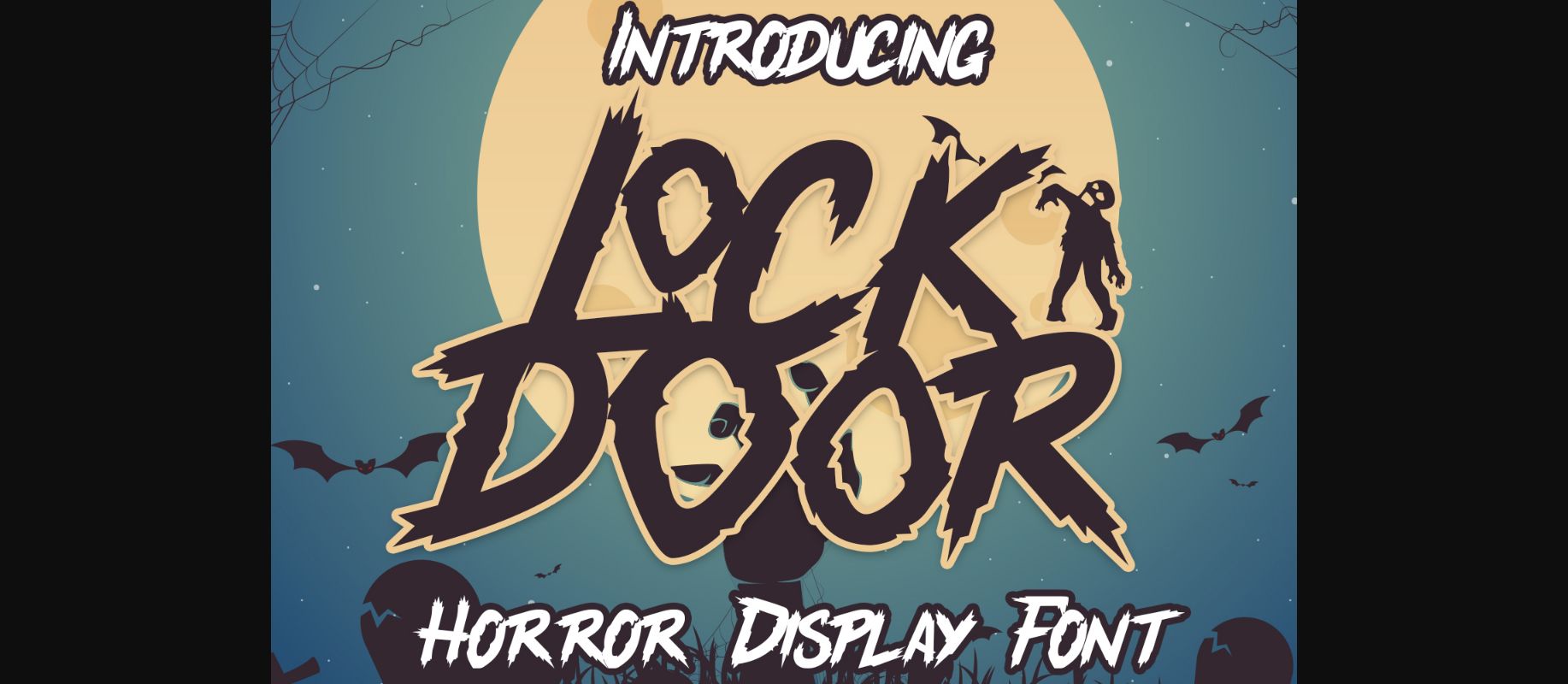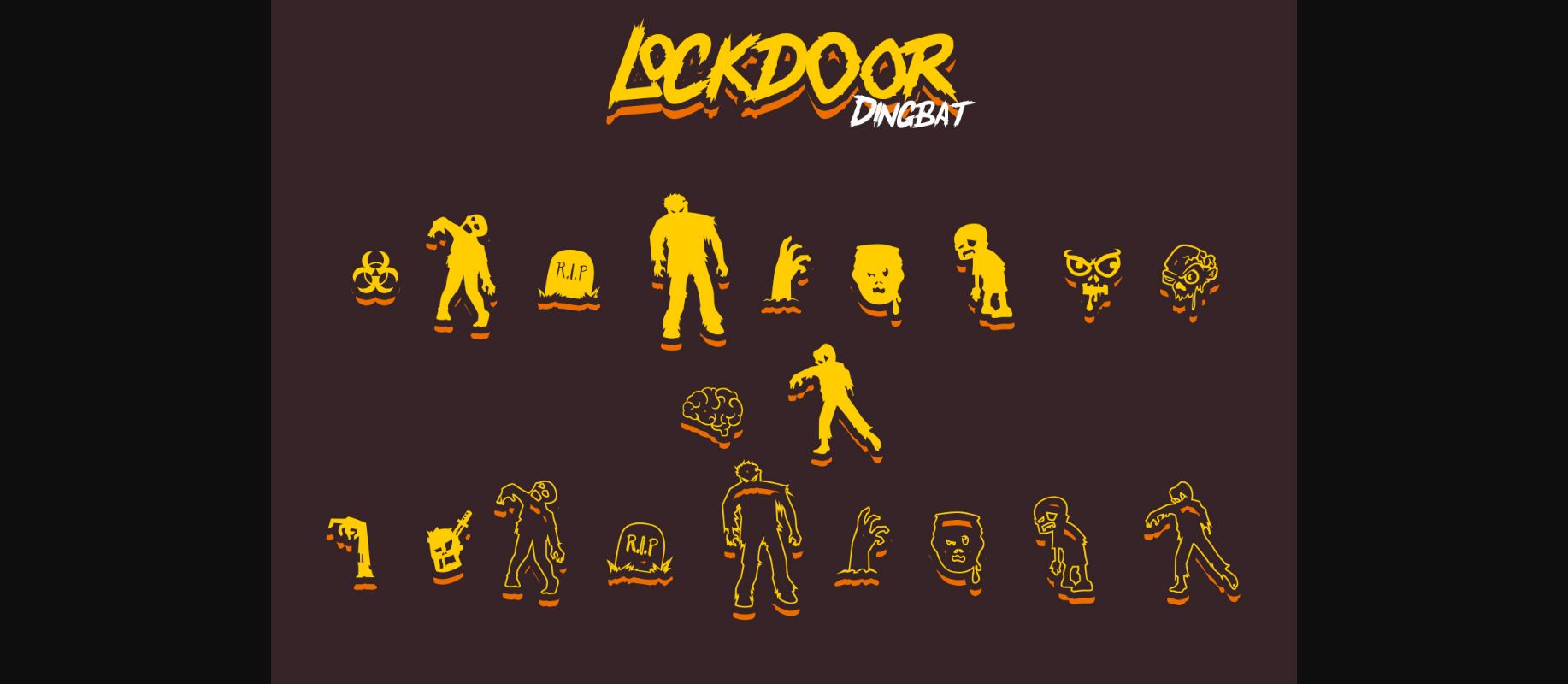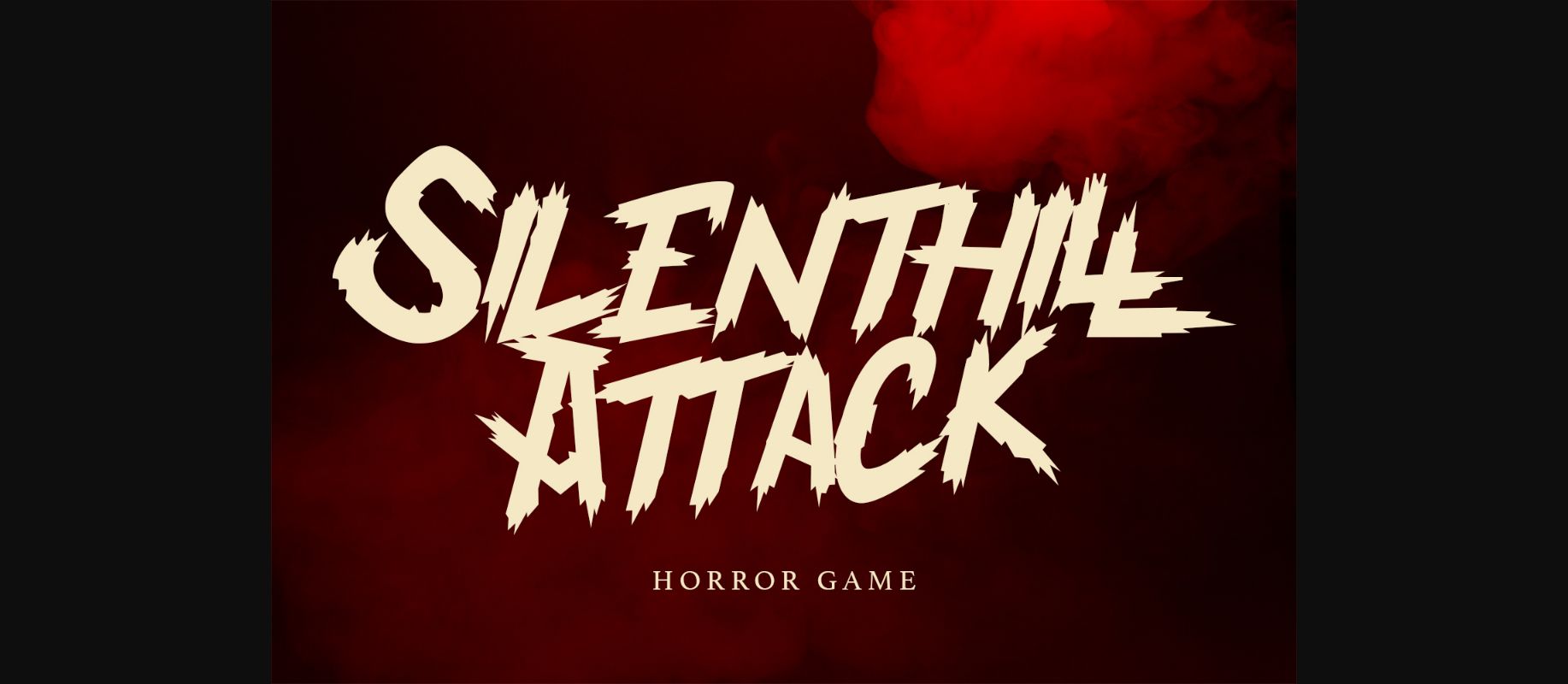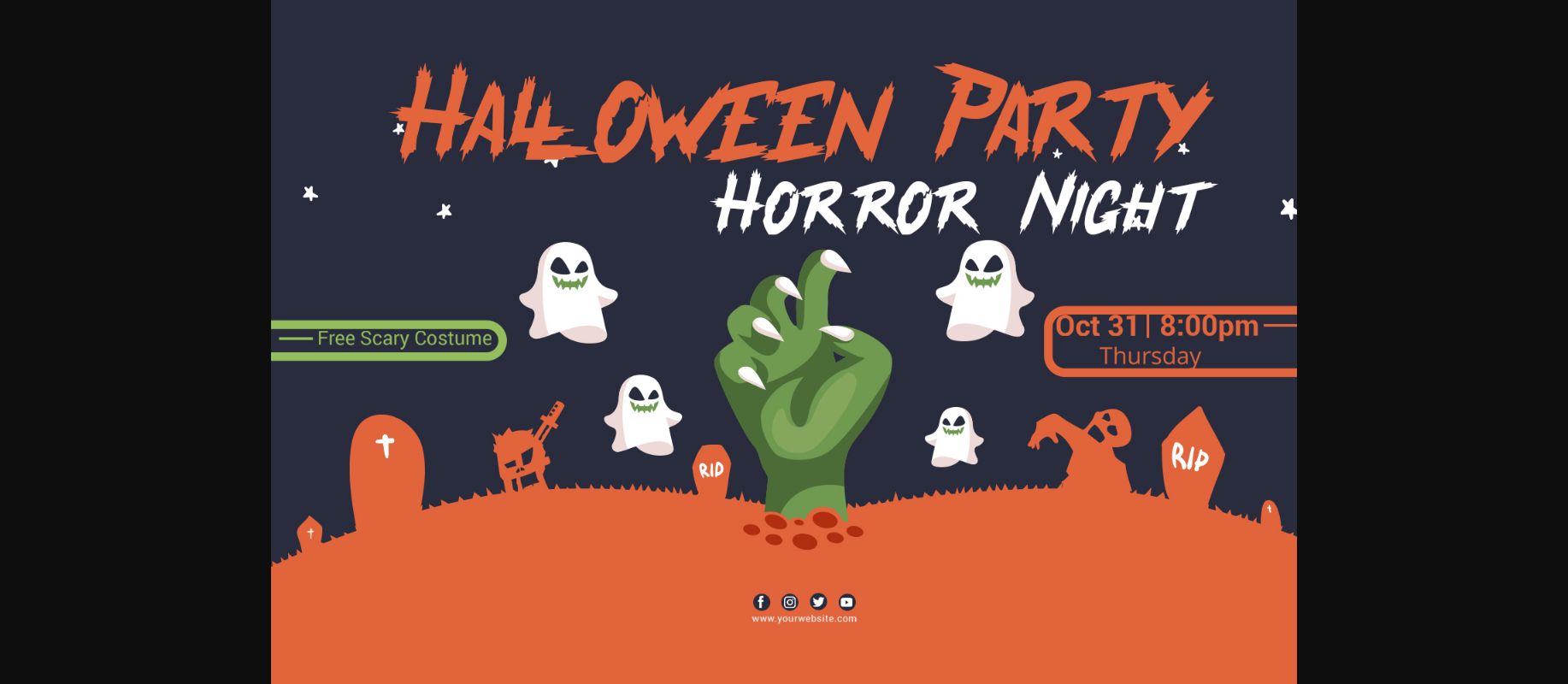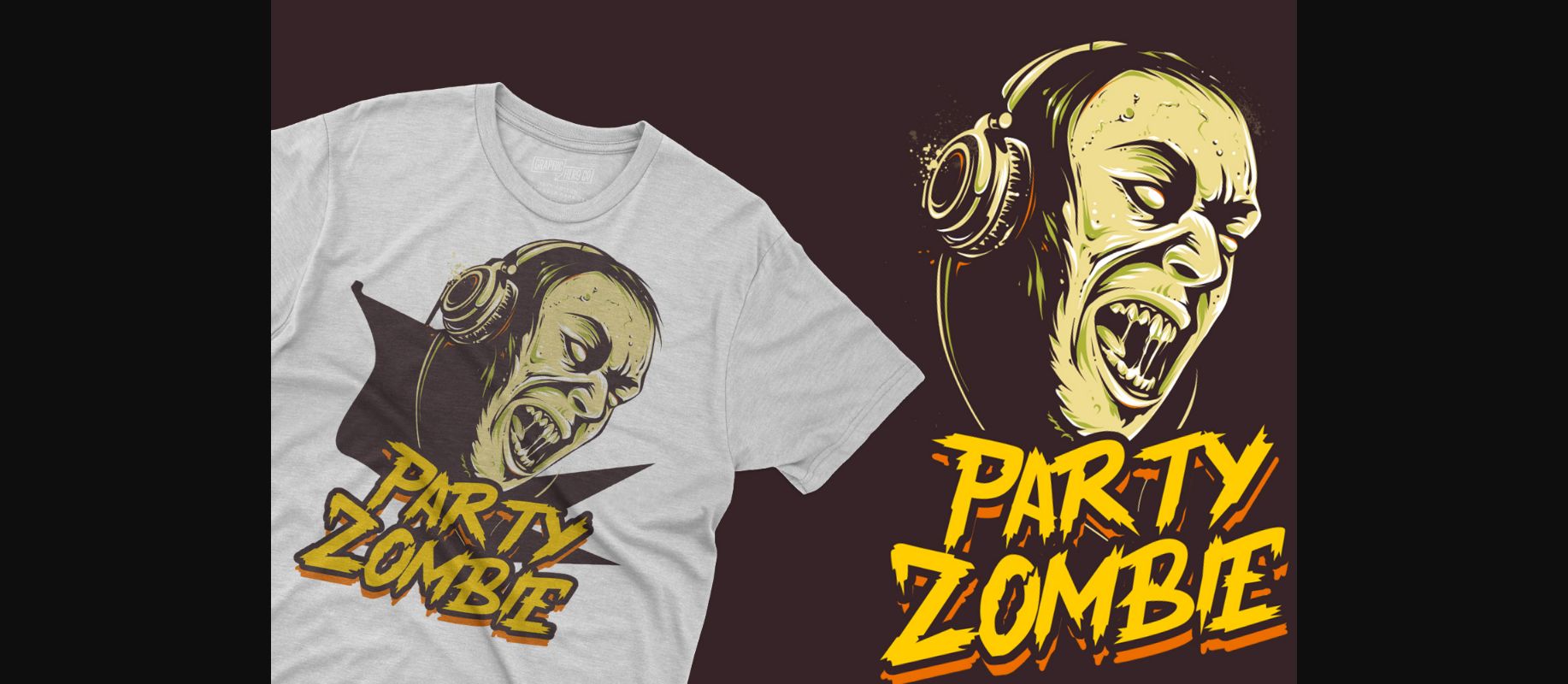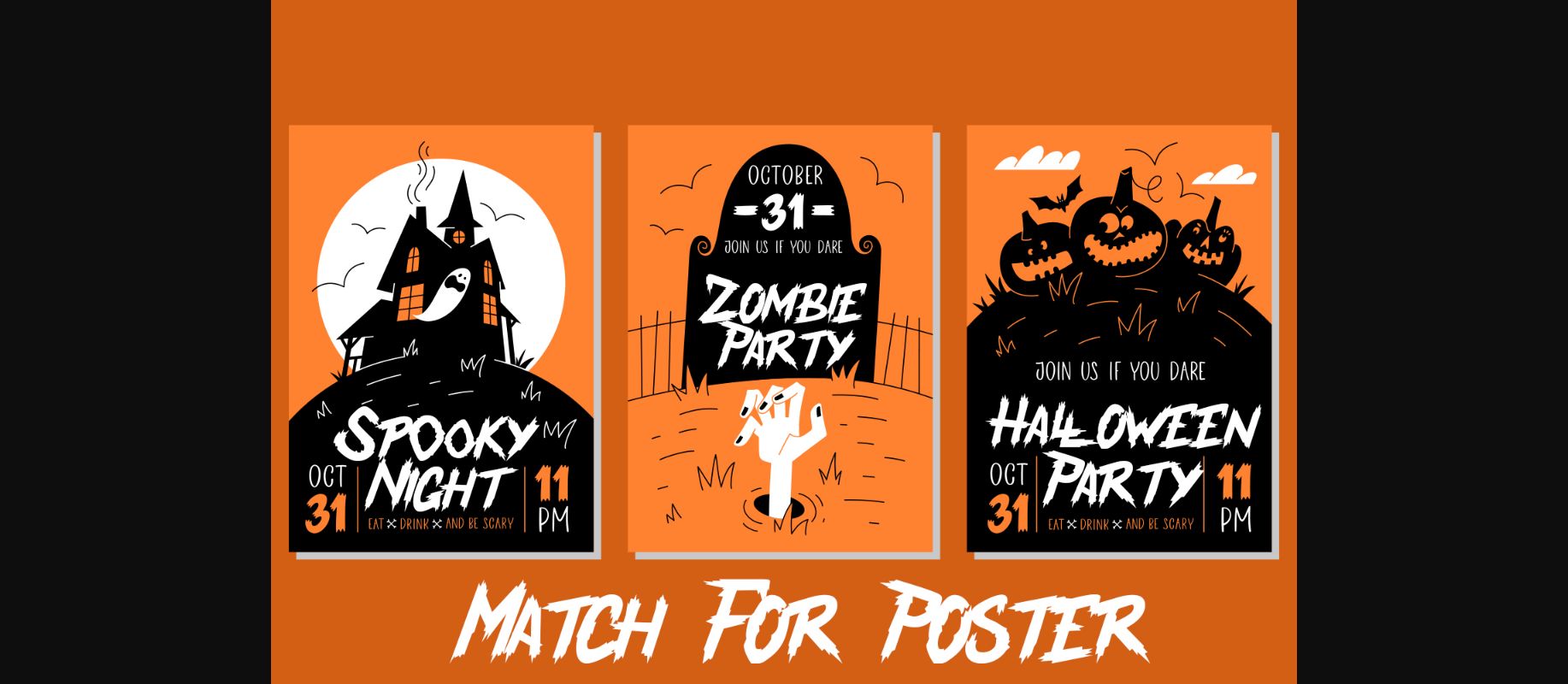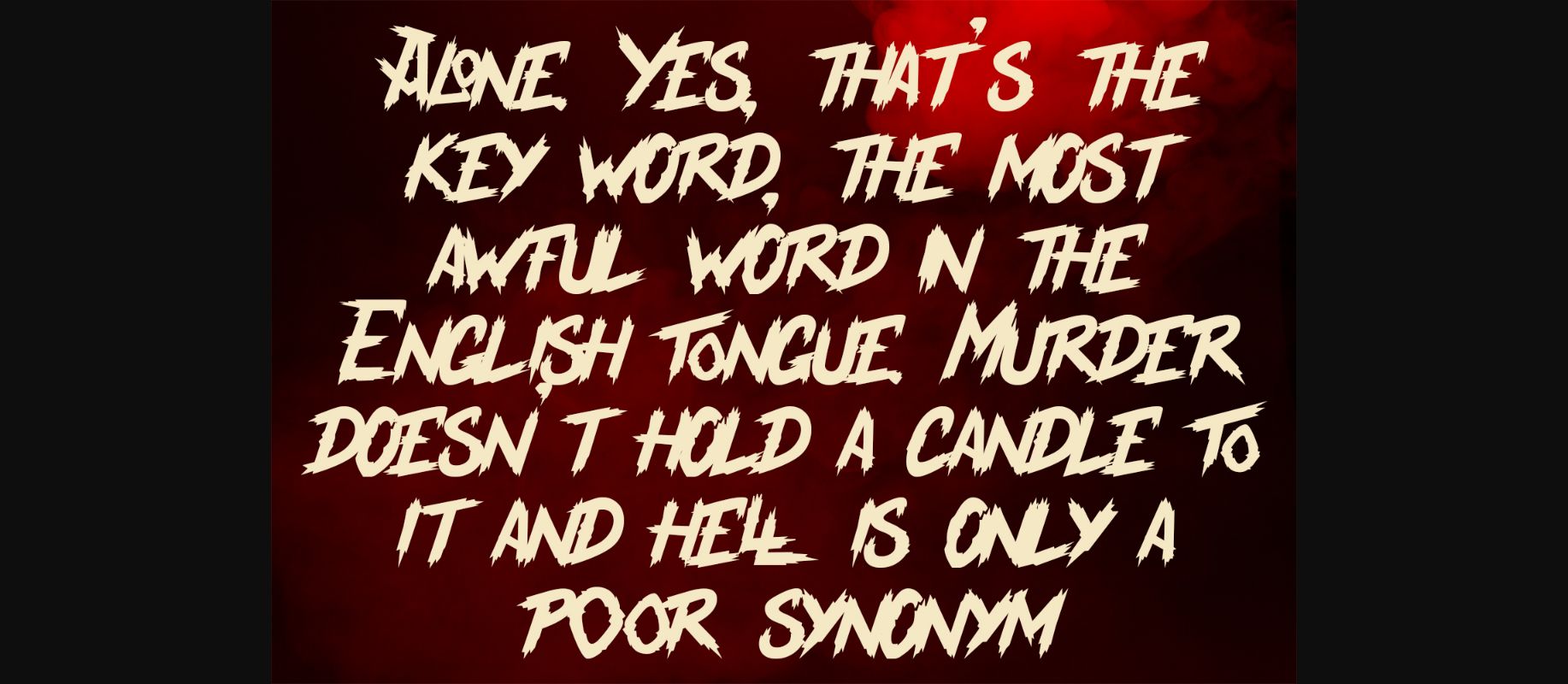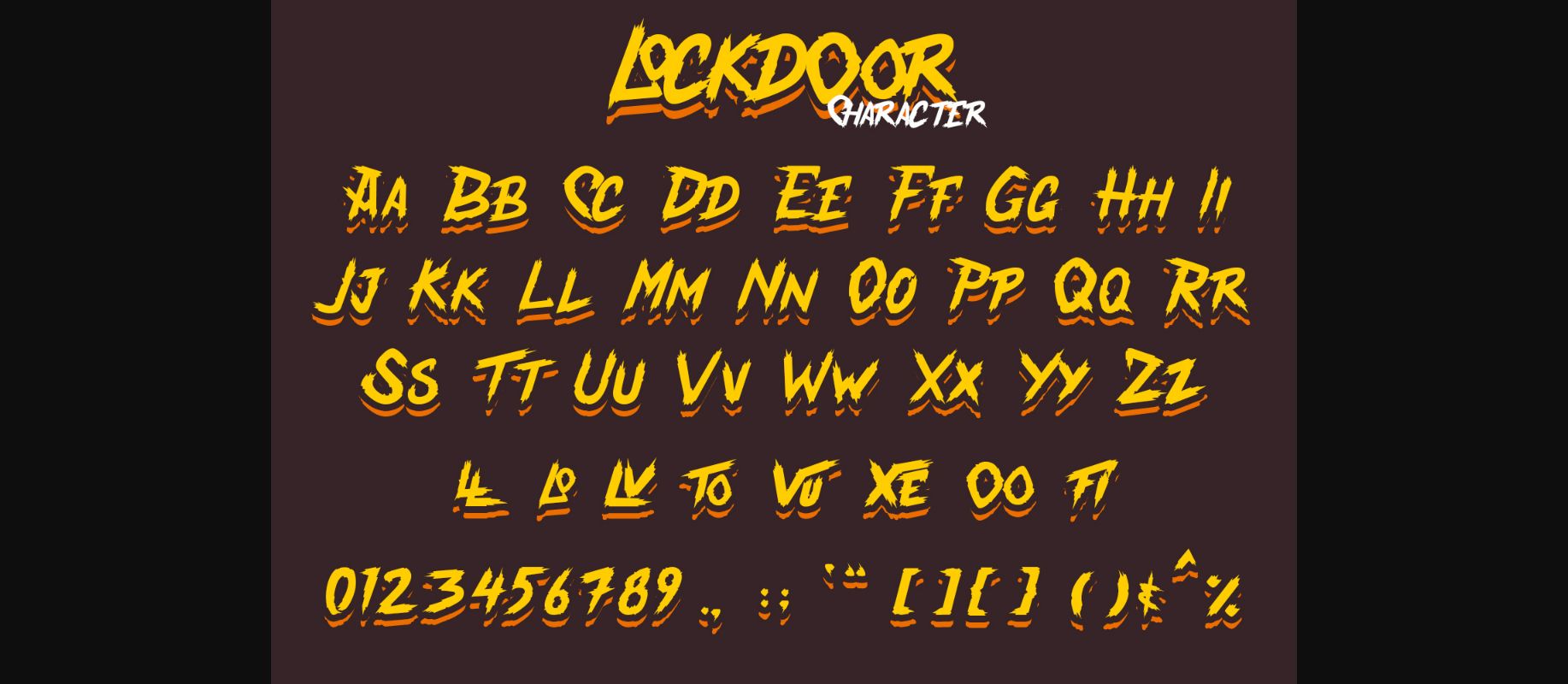
Lockdoor Font
About Lockdoor Font
Lockdoor is an incredibly unique decorative font perfect for the Halloween season. Masterfully designed to become a true favorite, this font has the potential to bring each of your creative ideas to the highest level!